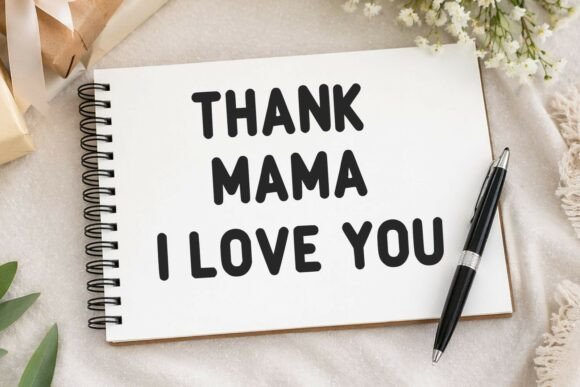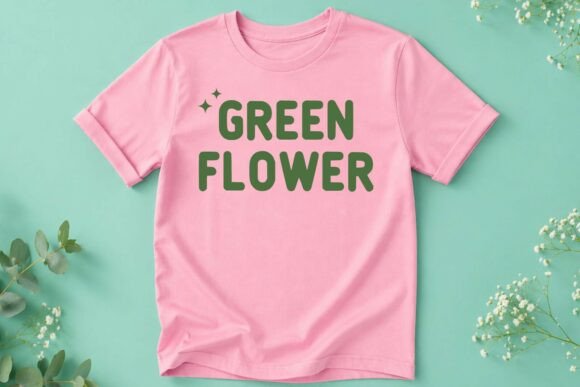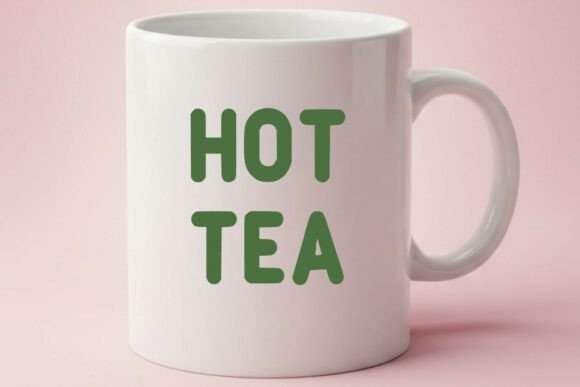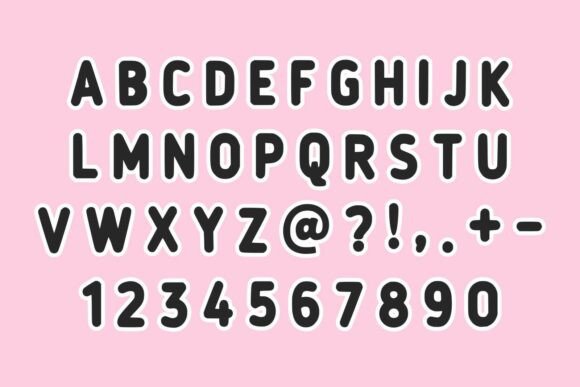
Unleashing the Joy of Creativity: Introducing Cosplay House Font
Remember the thrill of sitting in front of a blank piece of paper, surrounded by markers, glue, and scissors, waiting for inspiration to strike? For many of us, this is the moment when creativity truly comes alive. It’s the spark that ignites a project, a passion, or a dream. And for designers, this moment is all the more magical when paired with the perfect font.
Enter the Cosplay House Font, a delightful display font that brings a playful touch to any design. With its bold, rounded letters and cheerful personality, this font is the perfect companion for kids’ projects, comic designs, posters, and more. Whether you’re a seasoned designer or just starting out, the Cosplay House Font is a valuable addition to your toolkit, adding a bright and friendly vibe to your work.
Cosplay House Font Key Features
- Font Family: Cosplay House Font, a unique and playful sans-serif font designed for cosplay and comic book enthusiasts.
- Font Size: 4,000+ glyphs, including a wide range of characters, symbols, and accents for various languages.
- Unique Characteristics: Includes a wide range of special characters, such as emoticons, comic book-inspired symbols, and custom-designed icons.
- Language Support: Supports multiple languages, including English, Spanish, French, German, Italian, Portuguese, and many others.
Cosplay House Font Review
Overall, I’m quite impressed with the Cosplay House Font. Here are some things that stand out to me:
- ✨ It has a very unique, stylized look that’s perfect for a specific niche – anime and manga fans will love it!
- ✨ The font is highly customizable, allowing you to adjust the weights, styles, and even add effects like outlines or drop shadows.
- ✨ The font is well-structured, with a clear hierarchy of elements that makes it easy to read and understand.
- ⚠️ The font may not be suitable for all types of projects – its stylized look may not be suitable for formal or professional work.
- ⚠️ Some of the characters may not be compatible with certain operating systems or software, so be sure to test it thoroughly before using it in a project.
Overall, I think the Cosplay House Font is a great choice for designers and artists who need a unique, stylized font for their projects. With its high level of customization and well-structured design, it’s a great option for fans of anime and manga. However, be aware of its limitations and test it thoroughly before using it in a project.
Getting the Most Out of Cosplay House Font
To get the most out of Cosplay House Font, try the following tips:
- Experiment with different font sizes and styles to create a visually appealing design.
- Combine Cosplay House Font with other fonts to create a unique and eye-catching look.
- Use Cosplay House Font in creative ways, such as in title headings or in quotes.
Cosplay House Font is ideal for:
- Graphic designs, such as posters, flyers, and social media graphics.
The Cosplay House Font features a wide range of characters, including Latin, Greek, and Cyrillic alphabets, as well as a variety of punctuation and special characters. The font also includes a range of Japanese characters, making it suitable for use in anime and manga-related projects.